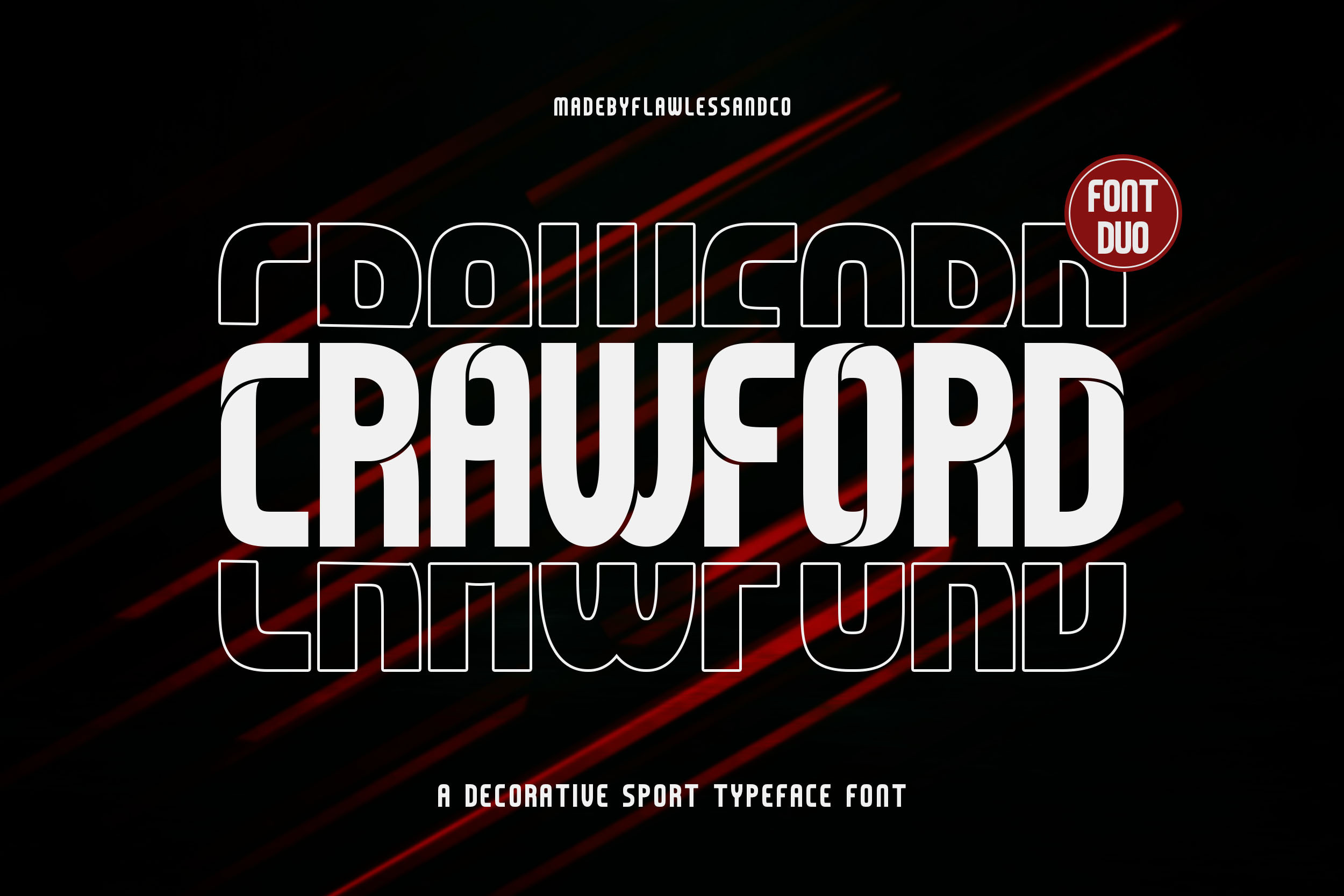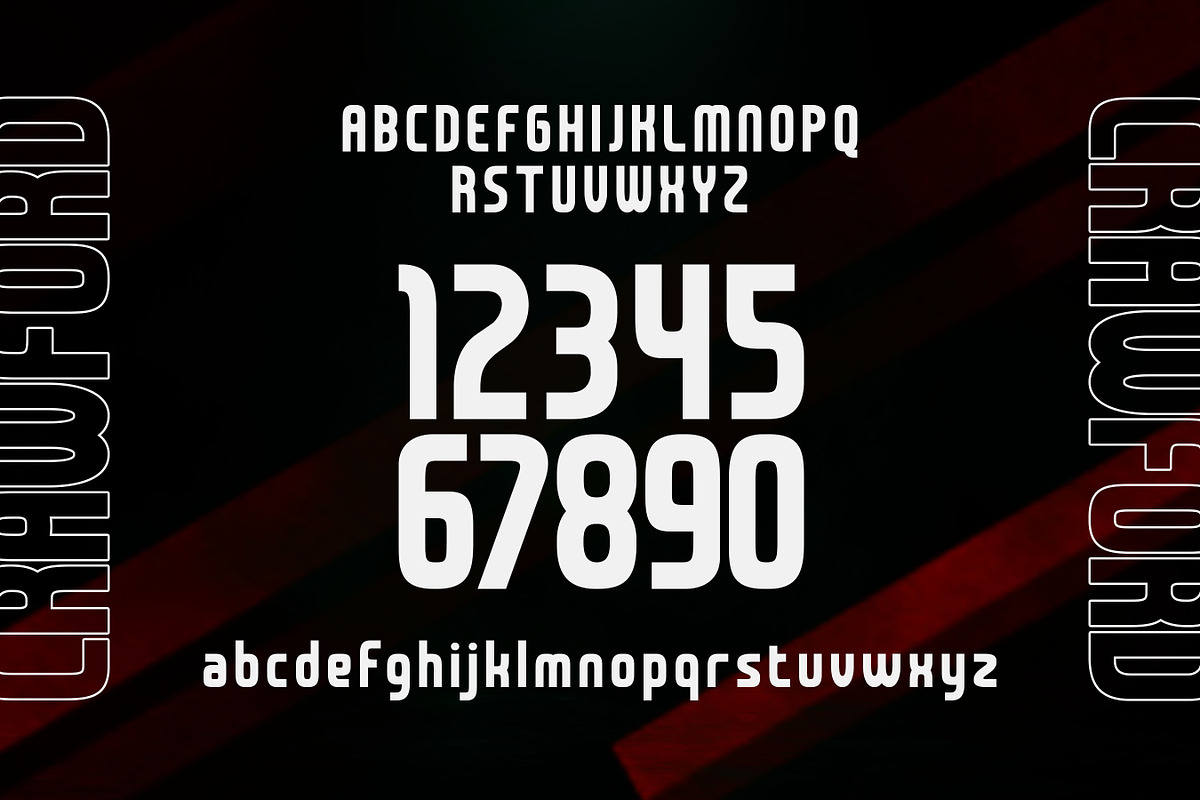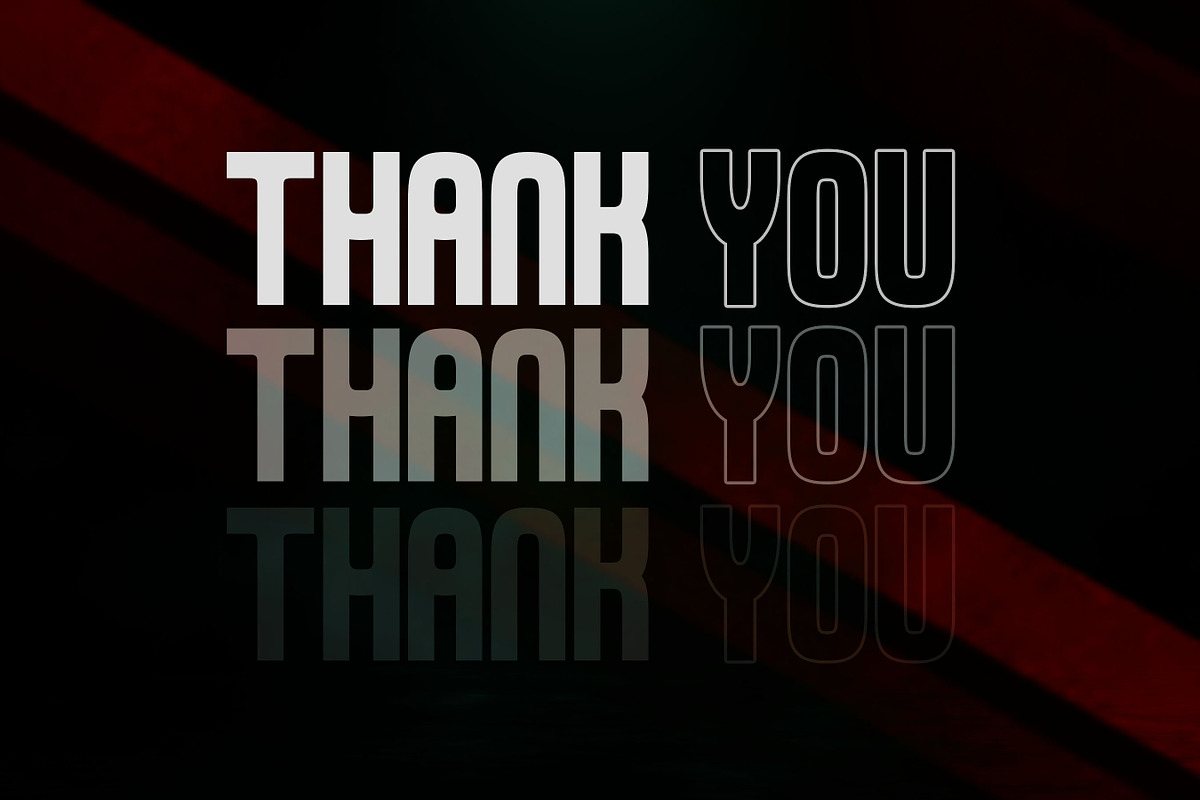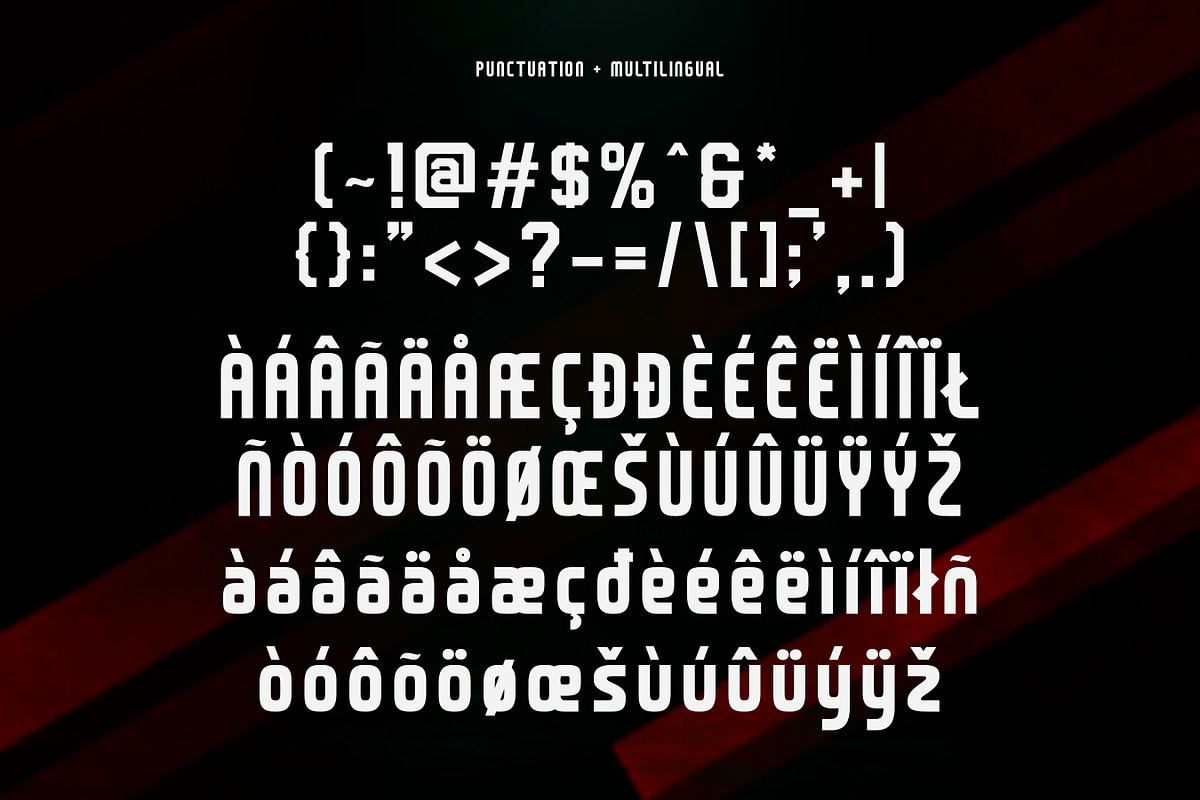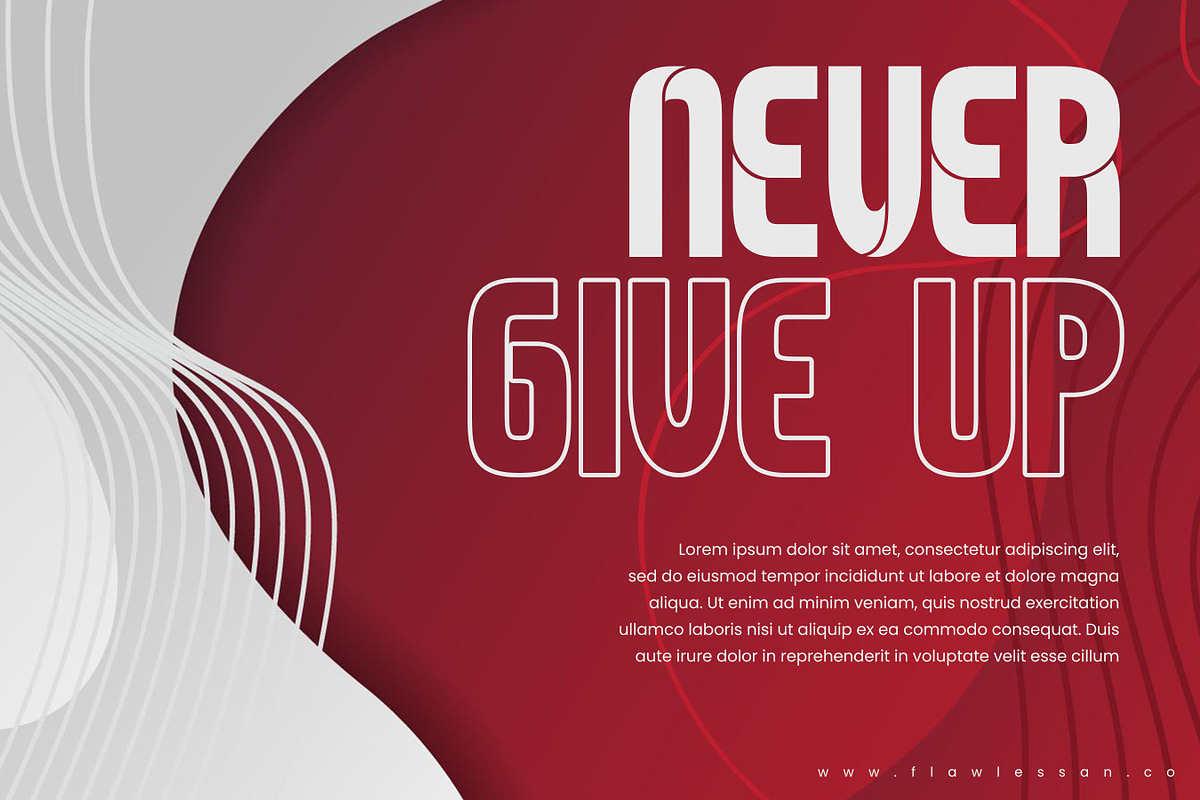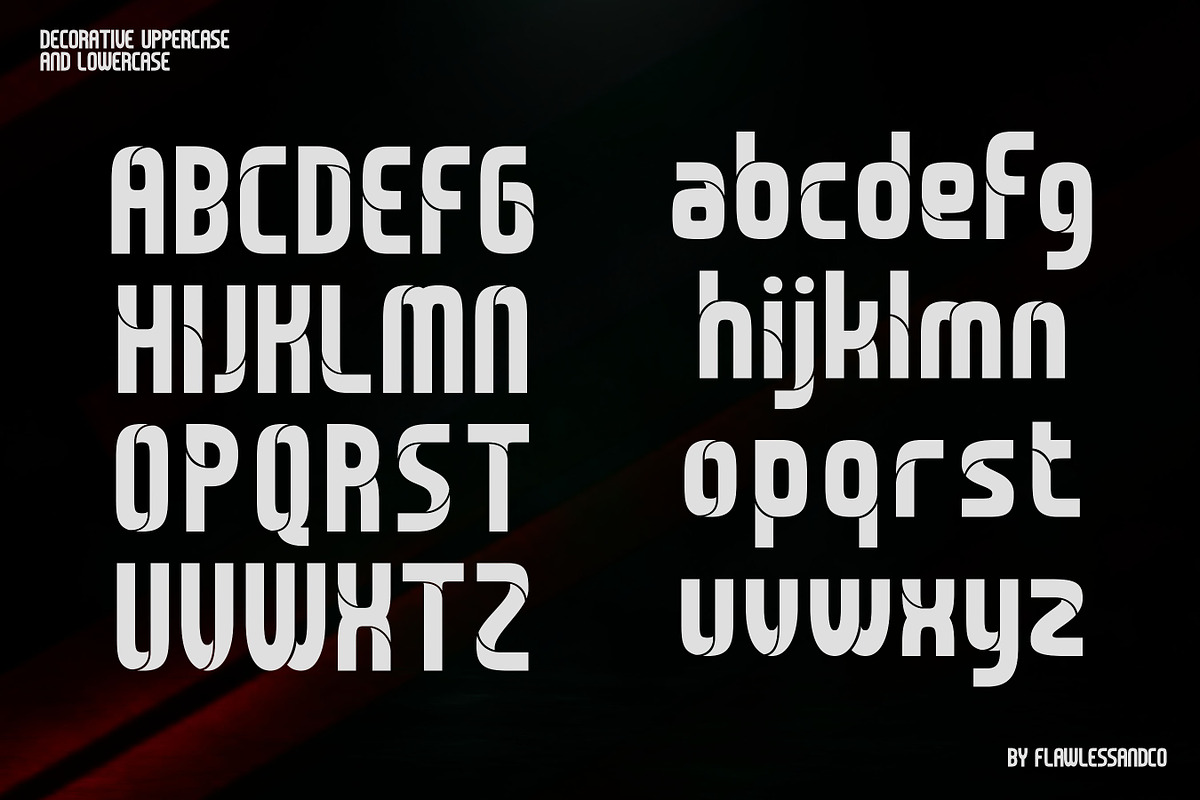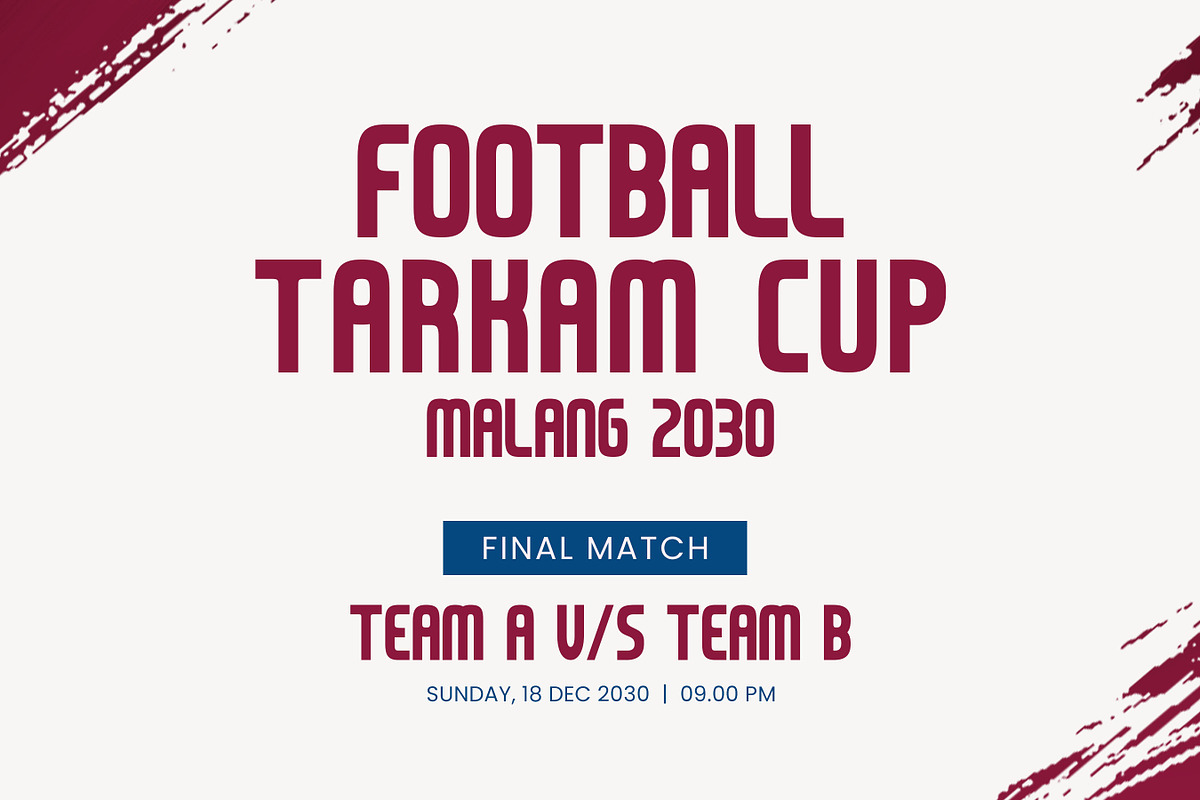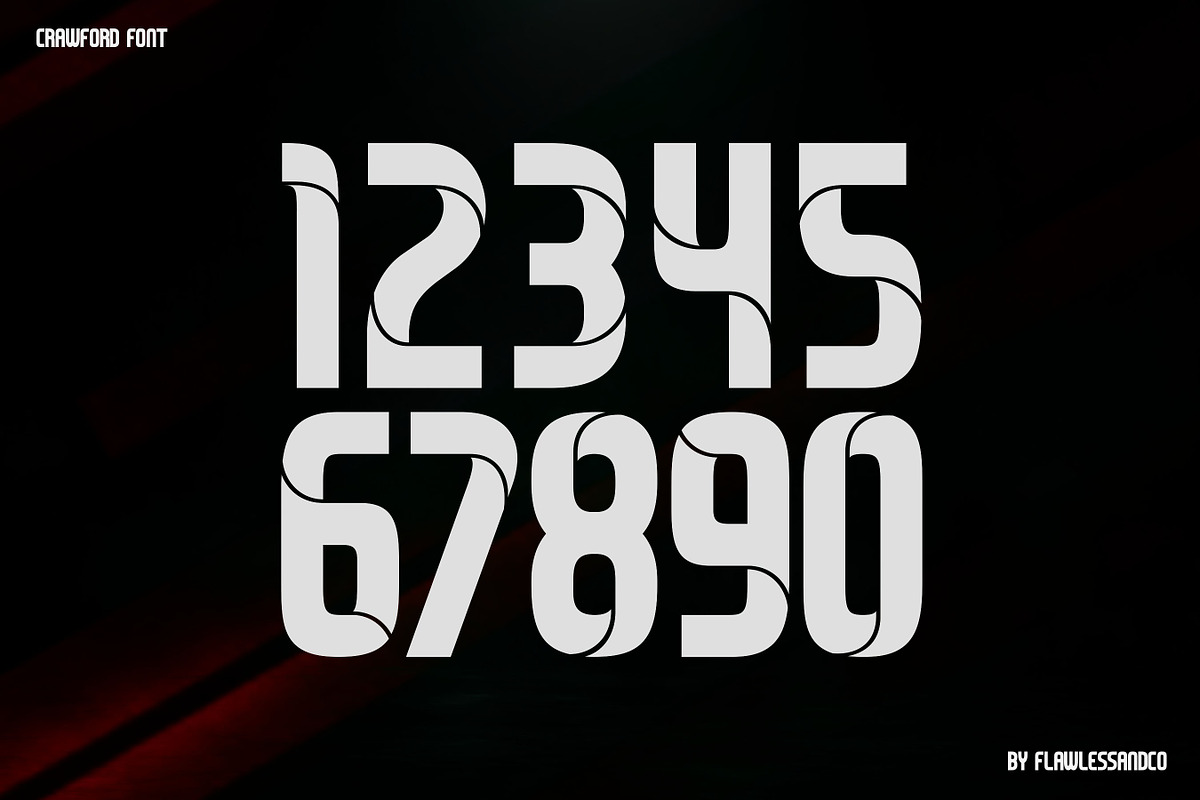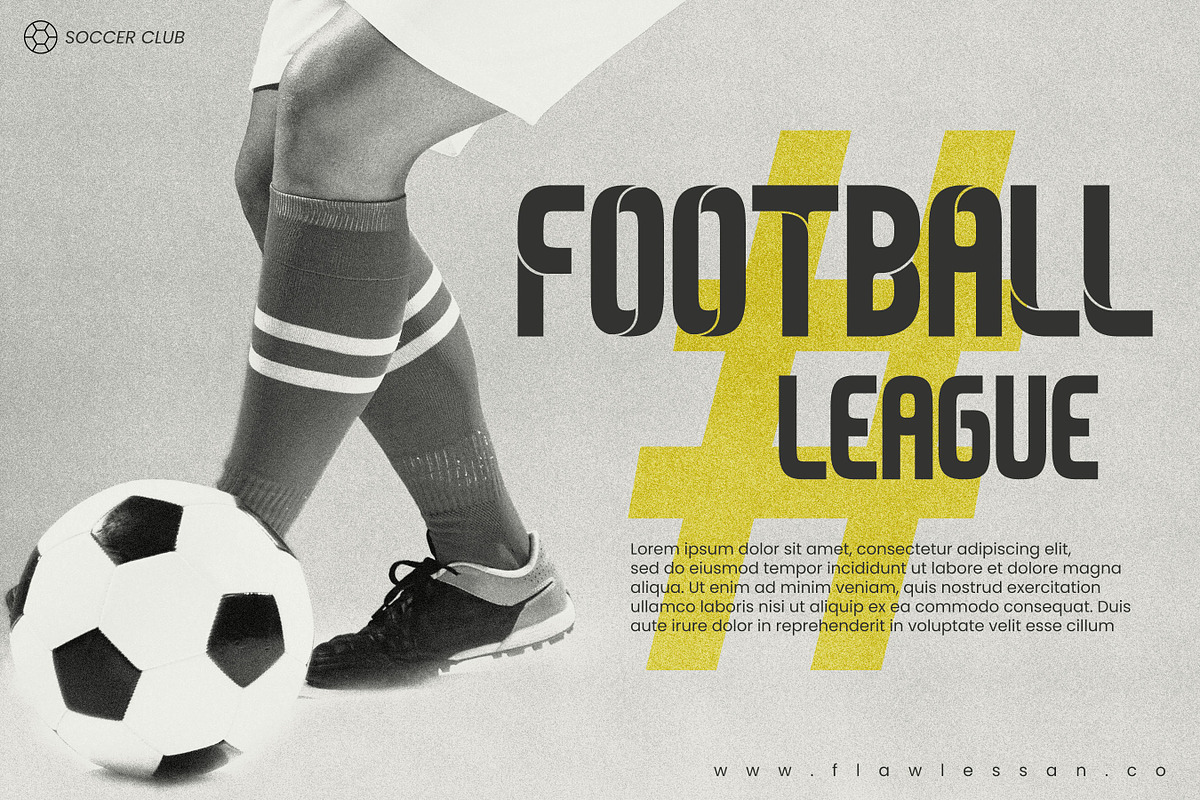
Crawford - Display Font
Introducing "Crawford," a display sports font designed to capture the dynamic energy and excitement of the game. With its bold and athletic letterforms, Crawford is perfect for sports branding, team jerseys, posters, football events, or other sports events, and more, ensuring your designs stand out with a powerful and energetic presence.
Multilingual Uppercase alphabet A-Z Lowercase alphabet a-z Numbers 0-9 Some punctuation